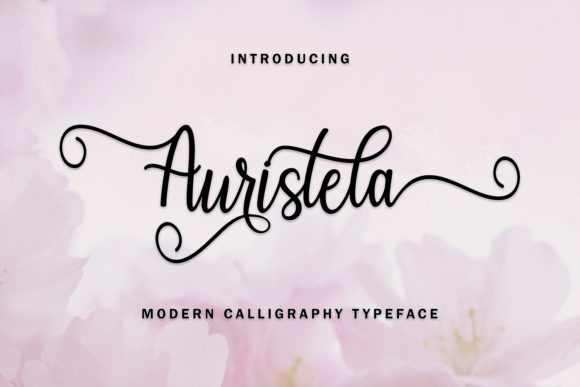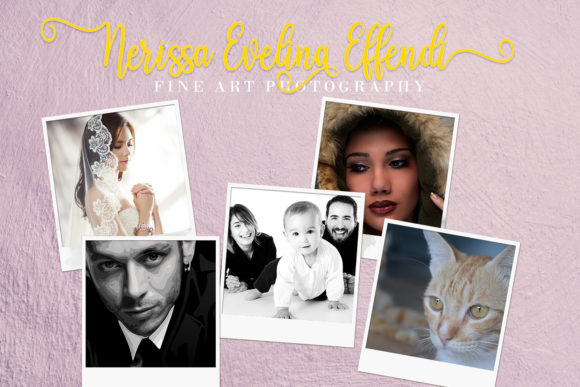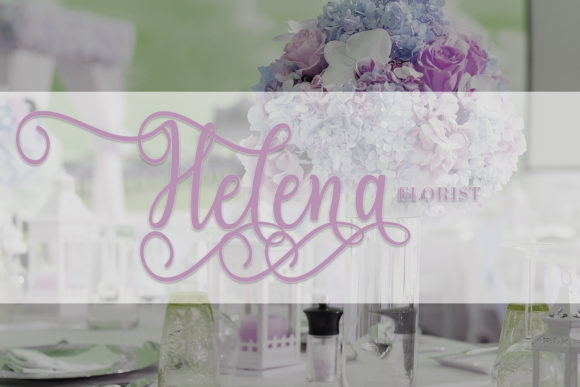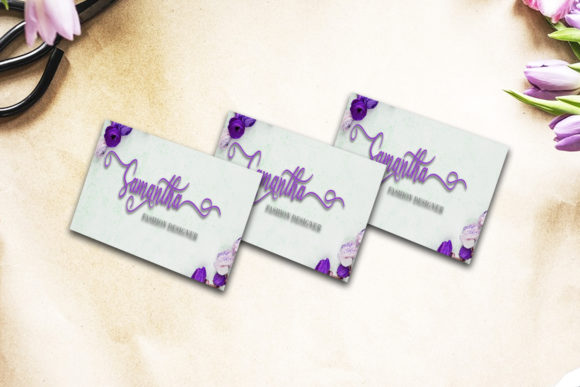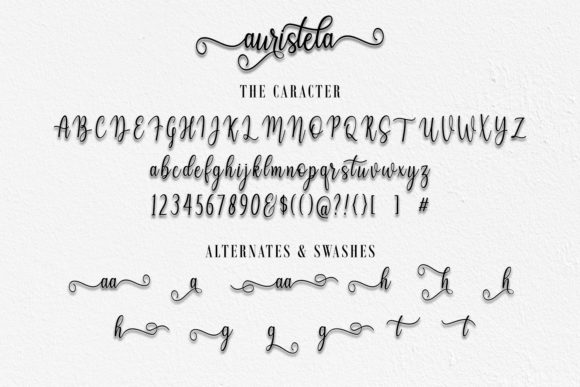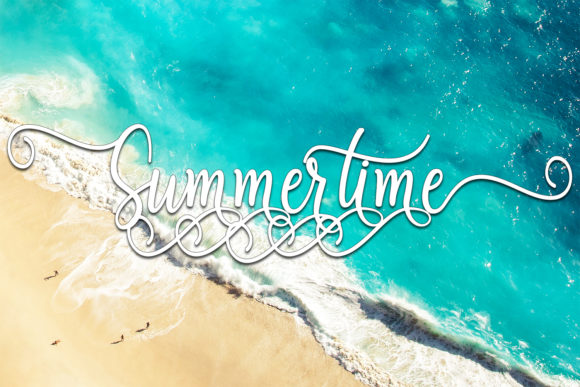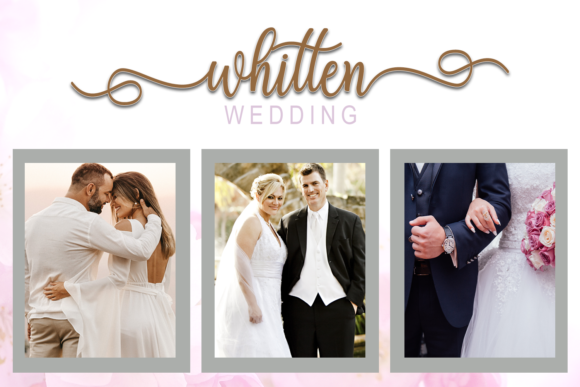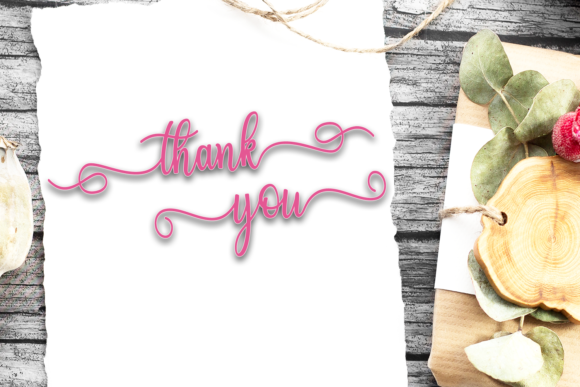
HomeScript FontsAuristela Script Font Script Fonts Auristela Script Font FacebookXPinterestWhatsApp Auristela Script Font Poster 2 Auristela Script Font Poster 3 Auristela Script Font Poster 4 Auristela Script Font Poster 5 Auristela Script Font Poster 6 Auristela Script Font Poster 7 Auristela Script Font Poster 8 About Auristela Script Font Auristela is a stunning script font with amazing swashes. Fall in love with its modern style! DOWNLOAD NOW People also explored Signature Gon Best Dreams Font Magical Font Vintage Hands Family Font Maestri Ottmar Font Splash Font The Rotterdam City Font Elegasans Font 269 0 TagsAuristela Script Font Previous articleSweet Cake FontNext articleKing Billy Font LEAVE A REPLY Cancel reply Comment: Please enter your comment! Name:* Please enter your name here Email:* You have entered an incorrect email address! Please enter your email address here Website: Save my name, email, and website in this browser for the next time I comment. Personal Use Free Qiwqiw Personal Use Free Read more about this font Trunk Shaped Personal Use Free Read more about this font Archipellago Personal Use Free Read more about this font Rise of Kingdom Personal Use Free Read more about this font BLOG Top 10 Handwritten Fonts That Elevate Your Designs Top 10 Handwritten Fonts That Will Elevate Your Designs Handwritten fonts bring a warm, personal touch to every creative project. Whether you're designing logos, invitations,... The 10 Best Handwriting Fonts to Add Personality to Your Designs Where to Buy American Fonts Online in 2024 Free Fonts Risk: Why Free Fonts Can Be Dangerous for Designers